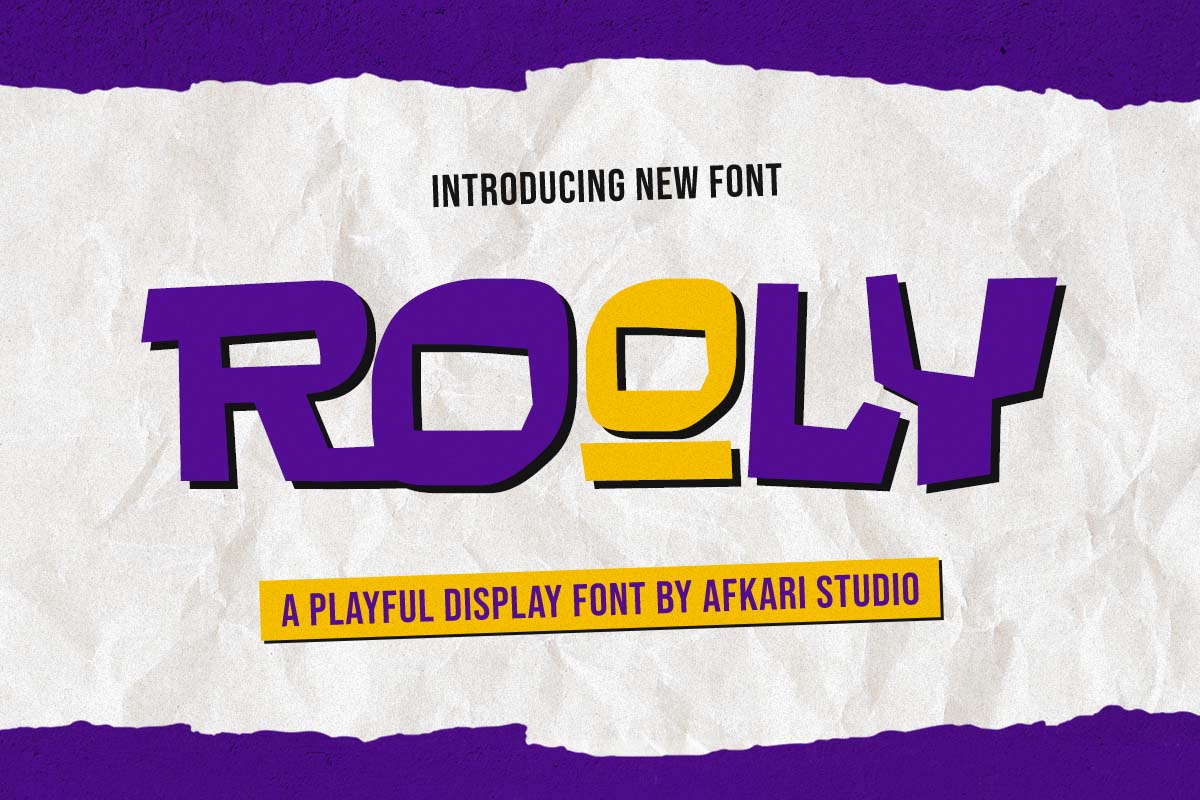
Rooly – A Playful Display Font Font
Designed by Afkari Studio
About Rooly – A Playful Display Font
Rooly is a fun and cheerful display font designed to bring energy and personality to your creative projects! With its bold shapes, quirky curves, and friendly character, Rooly is perfect for eye-catching designs like logos, posters, merchandise, packaging, social media posts, and kids-themed projects.
Rooly – A Playful Display Font